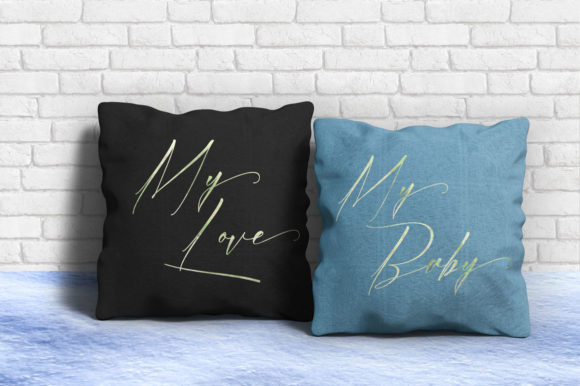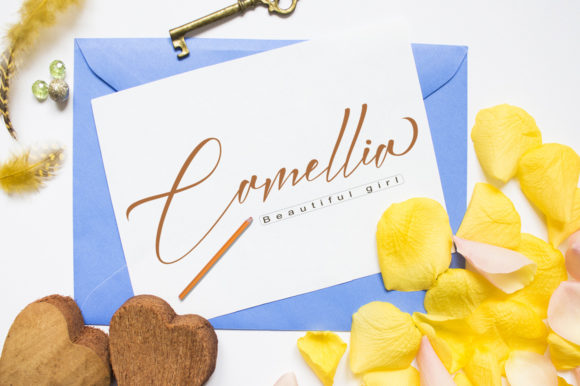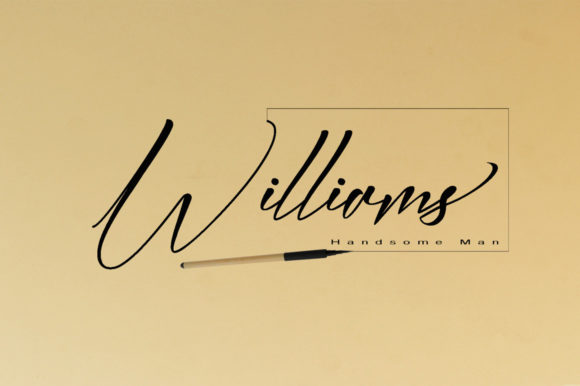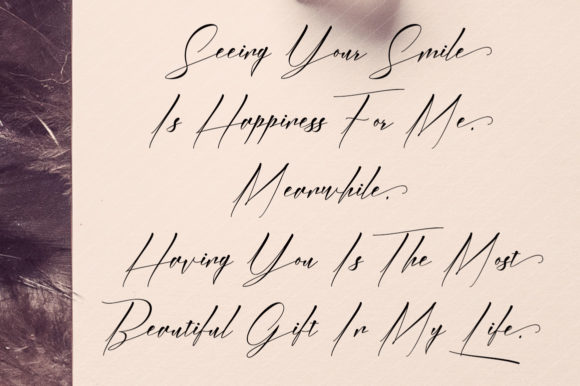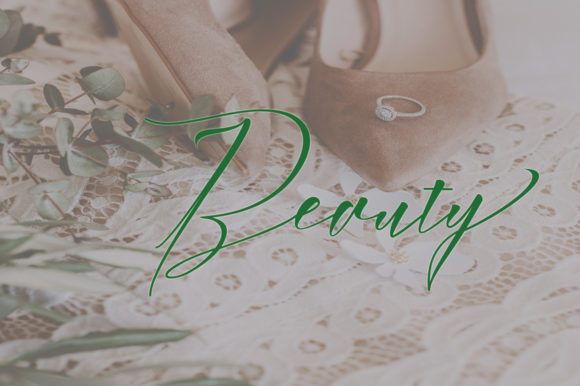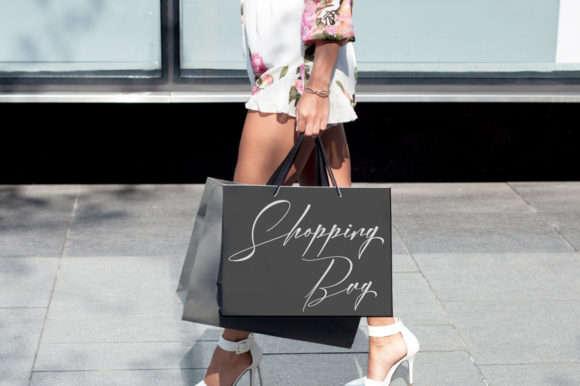
The Designer’s Delight: Getting to Know Dhaisy Font
I’ll never forget the time I was working on a branding project for a new coffee shop. My client wanted a logo that was both modern and vintage, with a touch of whimsy. I spent hours scouring font libraries, but nothing seemed quite right. That’s when I stumbled upon Dhaisy Font, a lovely and timeless handwritten font that stole my heart. In this article, I’ll share my experience with Dhaisy, its features, and how to make the most of it in your designs.
An Honest Review of Dhaisy Font
Dhaisy Font has become a staple in my design toolkit, and here’s why:
- ✨ Timeless charm: Dhaisy has a classic, handwritten feel that’s both elegant and approachable.
- ✅ PUA encoded: With PUA encoding, accessing glyphs and swashes is a breeze, making it easy to add personality to your designs.
- ✅ Versatile: Dhaisy works beautifully for logos, branding, quotes, and more.
Of course, no font is perfect, and Dhaisy has a few minor quirks:
- 🤔 Limited multilingual support: While Dhaisy covers the basics, it may not support every language or character set.
- ⚠️ Some glyphs require manual adjustment: Depending on the design, you might need to tweak glyphs to get the perfect fit.
The Story Behind Dhaisy Font
Dhaisy Font was created with love by a talented type designer who aimed to craft a font that would bring a touch of warmth and personality to designs. Inspired by classic handwriting and vintage typography, Dhaisy is the result of careful craftsmanship and attention to detail.
| Font Name | Dhaisy Font |
| Author | Polem |
| What is PUA encoding, and how does it benefit Dhaisy Font? | PUA (Private Use Area) encoding allows for easy access to glyphs and swashes, making it simple to add personality to your designs. |
| Is Dhaisy Font suitable for body text? | While Dhaisy is beautiful, it’s primarily designed for headlines, logos, and short text. For body text, consider a more traditional font. |